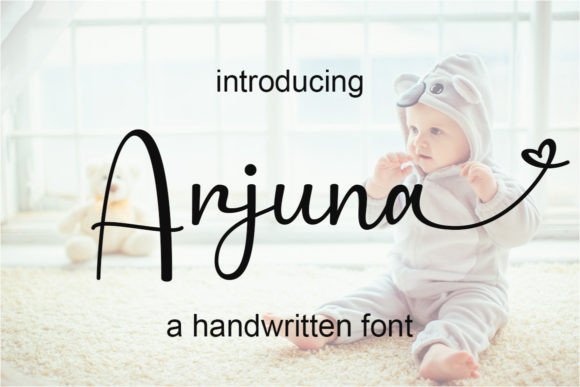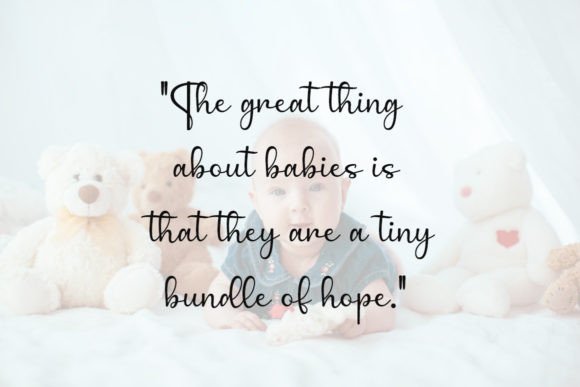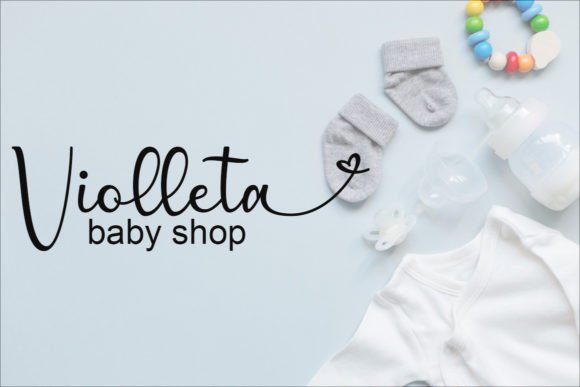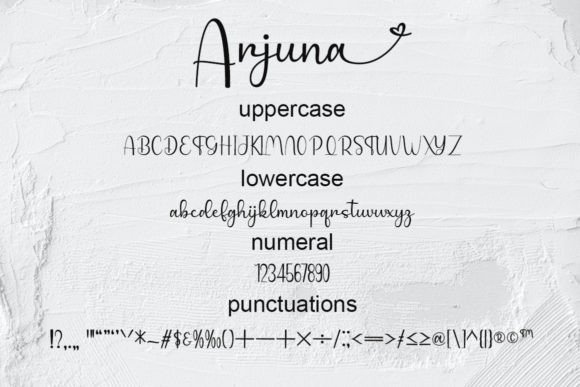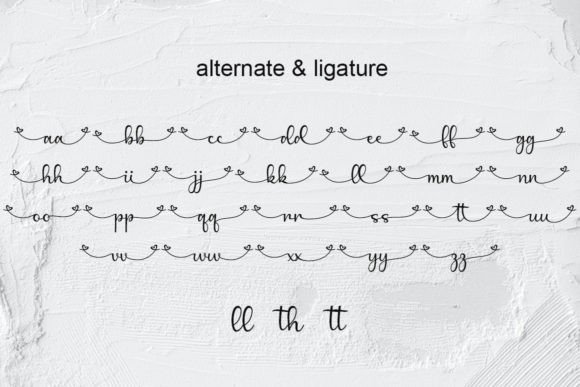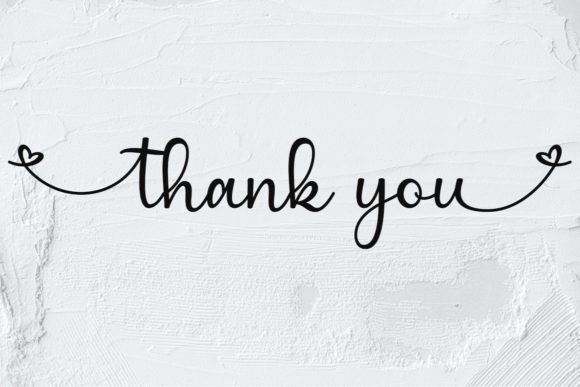
Arjuna Font
About Arjuna Font
**Arjuna Font: Enchanting Handwritten Elegance**
Introducing “Arjuna,” an enchanting handwritten font that exudes elegance. This versatile typeface is designed to elevate a wide spectrum of applications, making it suitable for everything from greeting cards to headlines. With its PUA encoding, accessing all the glyphs and swashes is effortless, providing you with a seamless design experience.
**Versatile Elegance:**
Arjuna brings a touch of elegance to a variety of design applications. Its versatility allows it to adapt gracefully to different contexts, making it suitable for a range of projects.
**Perfect for Greeting Cards:**
Enhance your greeting cards with the enchanting touch of Arjuna. The handwritten elegance adds a personal and stylish element to your messages, making them more memorable.
**Captivating Headlines:**
Transform your headlines into captivating and visually appealing elements with Arjuna. The enchanting script draws attention and adds a touch of sophistication to your titles.
**Wide Spectrum of Applications:**
Arjuna is designed to cater to a wide spectrum of applications. Whether you’re working on print or digital materials, this font seamlessly integrates into your creative projects.
**Access All Glyphs and Swashes with Ease:**
Thanks to its PUA encoding, Arjuna offers easy access to all the glyphs and swashes. Enjoy the flexibility of incorporating these design elements effortlessly into your projects.
**Create Elegant Designs:**
Let Arjuna be the foundation for your elegant designs. Whether it’s invitations, posters, or any other creative endeavor, this font elevates the overall aesthetic with its enchanting handwriting.
**Personalize Your Messages:**
The handwritten charm of Arjuna allows you to personalize your messages with a unique touch. Add character and warmth to your text, making it more engaging for your audience.
**Effortless Design Experience:**
With Arjuna, enjoy an effortless design experience. Its enchanting script simplifies the process of creating visually appealing and elegant layouts.
**Pair with Serif or Sans-Serif Fonts:**
Experiment with pairings to find the perfect combination for your project. Arjuna’s adaptability makes it suitable for pairing with both serif and sans-serif fonts, allowing you to explore diverse design possibilities.
Arjuna is more than just a font; it’s a tool that adds enchanting elegance to your creative projects. Whether you’re crafting greeting cards, headlines, or any other design, let this handwritten font be the element that infuses sophistication and charm into your work.